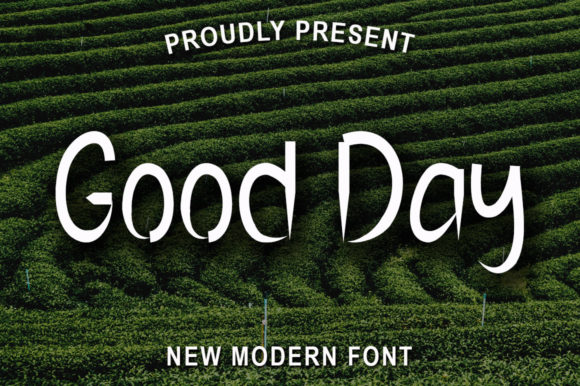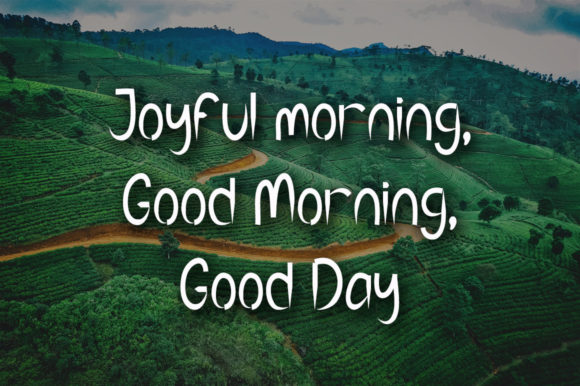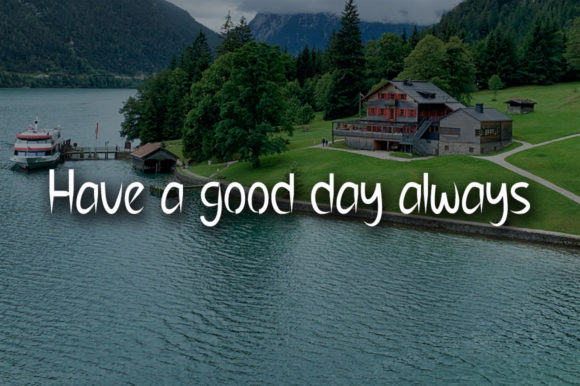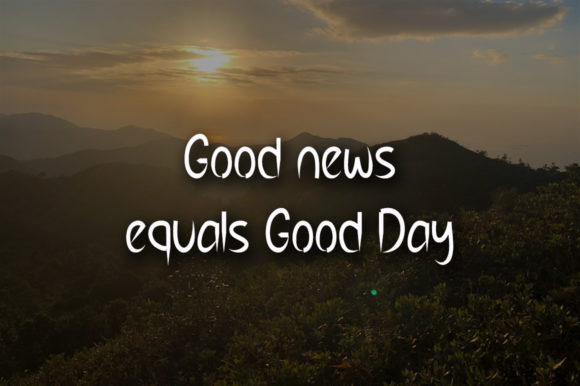
Good Day Font
About Good Day Font
Good Day is a simple and adaptable handwritten font, featuring a relaxed theme, featuring a lovely style. No matter the topic, this font will be an incredible asset to your fonts’ library, as it has the potential to elevate any creation.